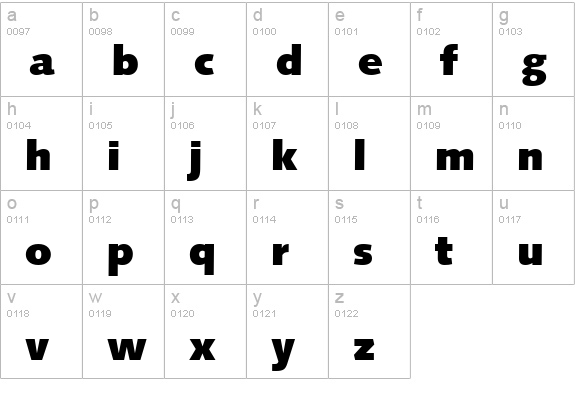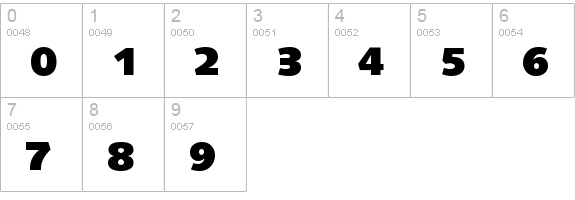
PFSyntax UltraBlack Font Details
Introducing PFSyntax UltraBlack - a bold and powerful font that demands attention with its heavy weight and sleek design. This font exudes confidence and strength, making it perfect for headlines, posters, and impactful designs. PFSyntax UltraBlack is a versatile typeface that adds a modern touch to any project, making a statement with its bold presence on the page. Best of all, PFSyntax UltraBlack is available for free download at FontsMarket.com. Simply visit the website to access this striking font and elevate your designs with its impactful style. Add a touch of sophistication and boldness to your projects with PFSyntax UltraBlack, the perfect choice for making a statement in your typography.